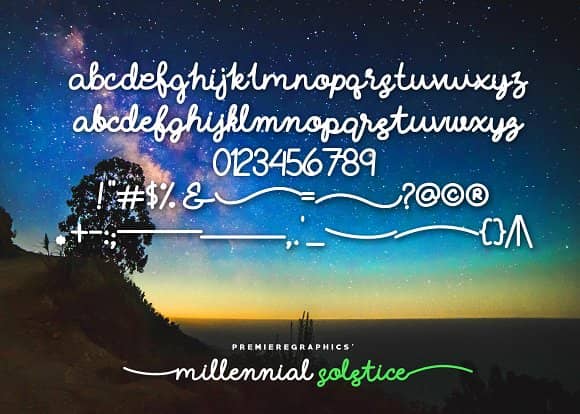
Millennial Solstice Script Font Free
Introduction Script font for the Millennial Solstice! Premiere Graphics created and shared the Millennial Solstice. The Millennial Solstice has arrived just in time for a new logo! This cursive font was painstakingly crafted to achieve the desired typographic aesthetic. The gorgeous script font is available in two formats: TTF and OFT. The font is compatible with Windows, Apple/Mac, Linux, Cricut, Silhouette, and other cutting machines.
The smooth and bold texture of this beautiful script font makes it ideal for banners, headers, pictures, logos and branding, product packaging, and so on. Millennial Solstice is also ideal for branding projects, homeware designs, product packaging, and as a classy text overlay on any background image.
| Name | Millennial Solstice Script Font Free |
| Style | Script, Calligraphy |
| Designer | Premiere Graphics |